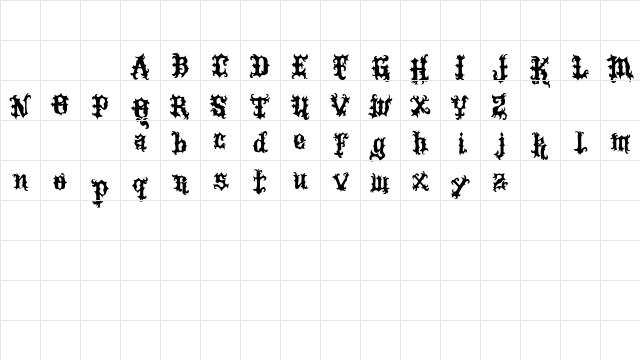
VTKS Tattoo Regular
Design Context for VTKS Tattoo
VTKS Tattoo is a composed and adaptable typeface that performs quietly and consistently across a wide range of design contexts.